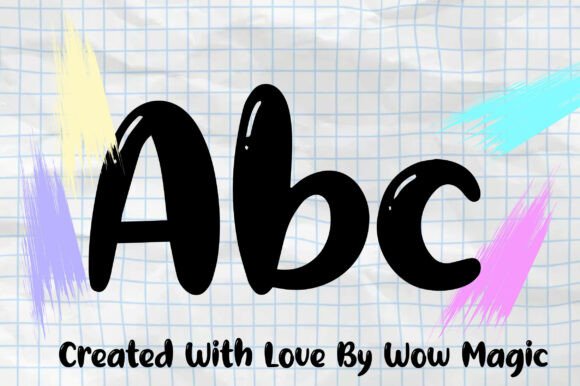
Introduction to Play Boy Font
Play Boy is a fun and energetic bubble display font designed to bring joy, charm, and personality into your designs.
With its chunky rounded shapes, bold handwritten feel, and glossy decorative highlights, this font creates a lively and eye-catching look that instantly stands out Its playful and expressive style makes Play Boy perfect for projects that need a cheerful and youthful touch.
Key Features of Play Boy Font